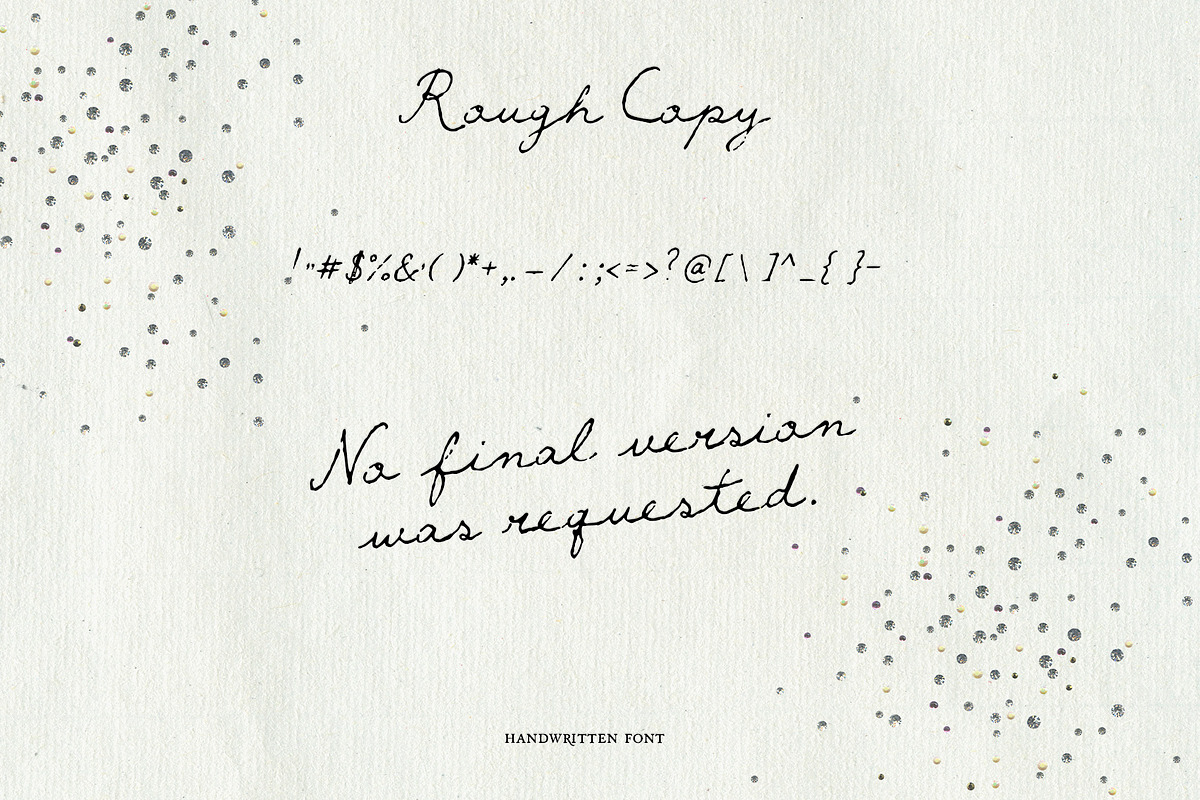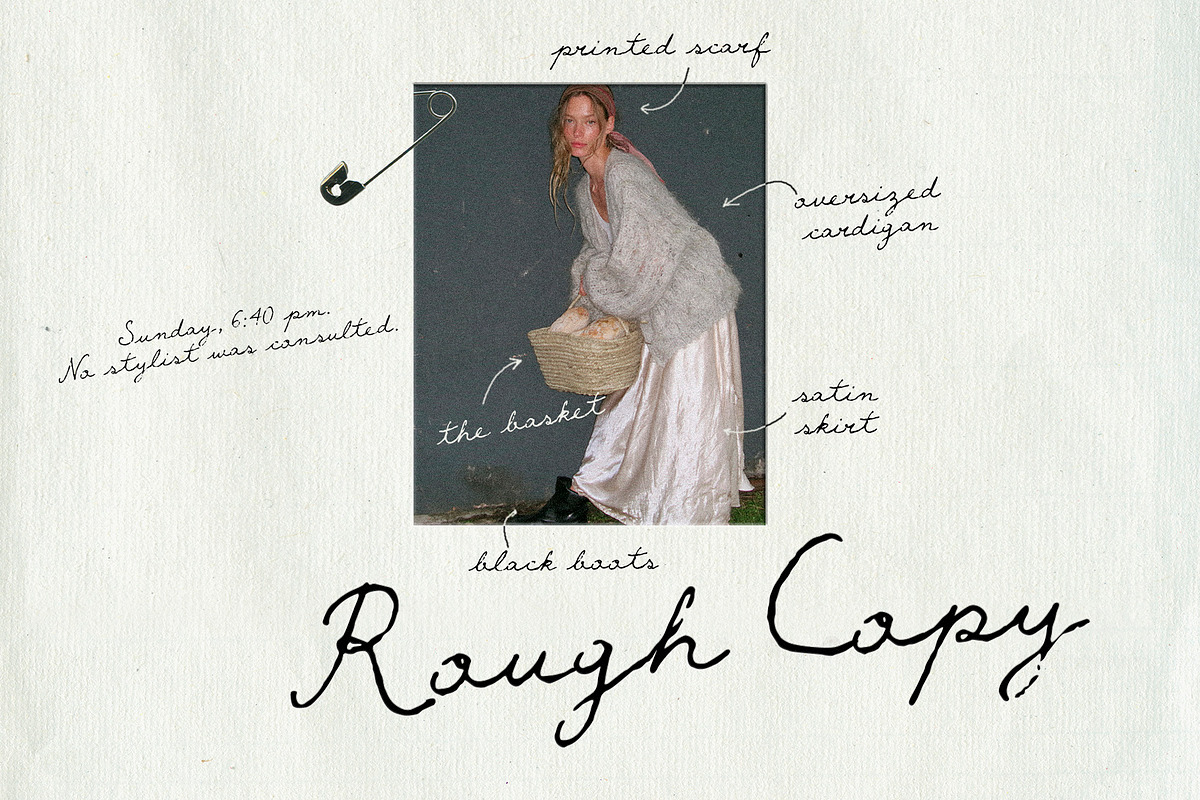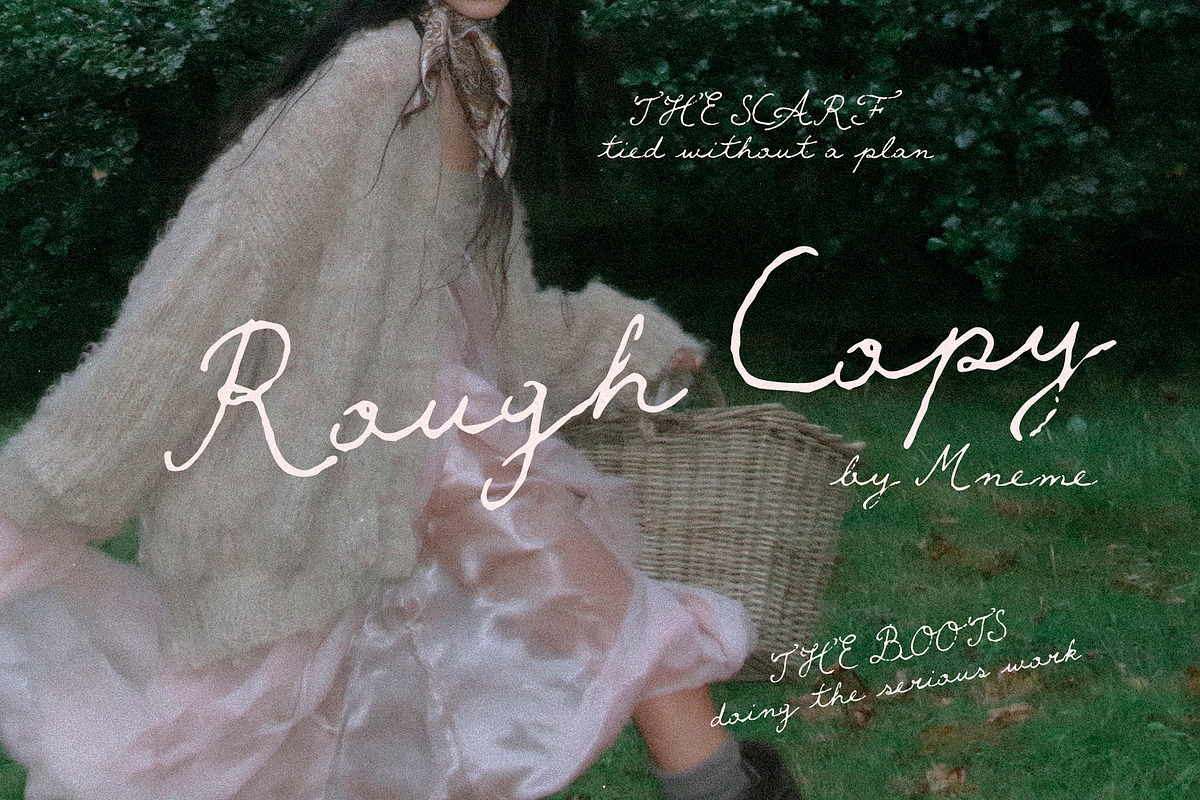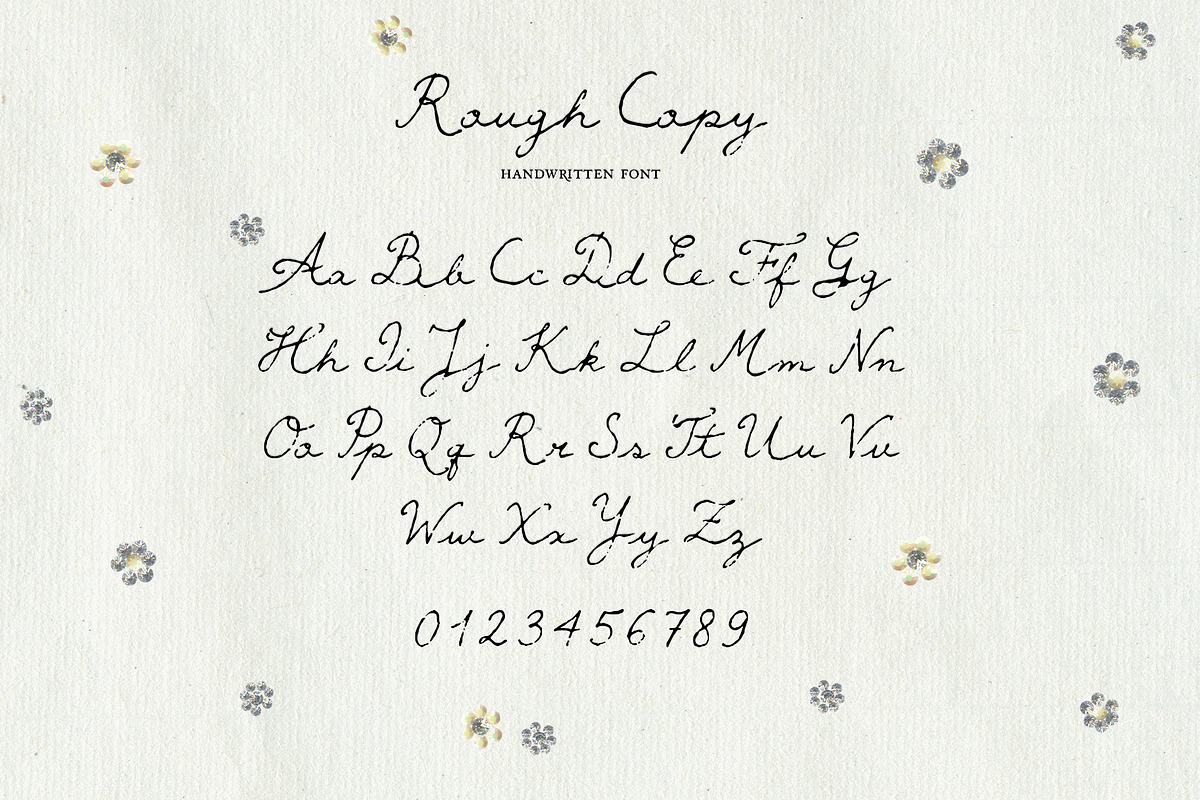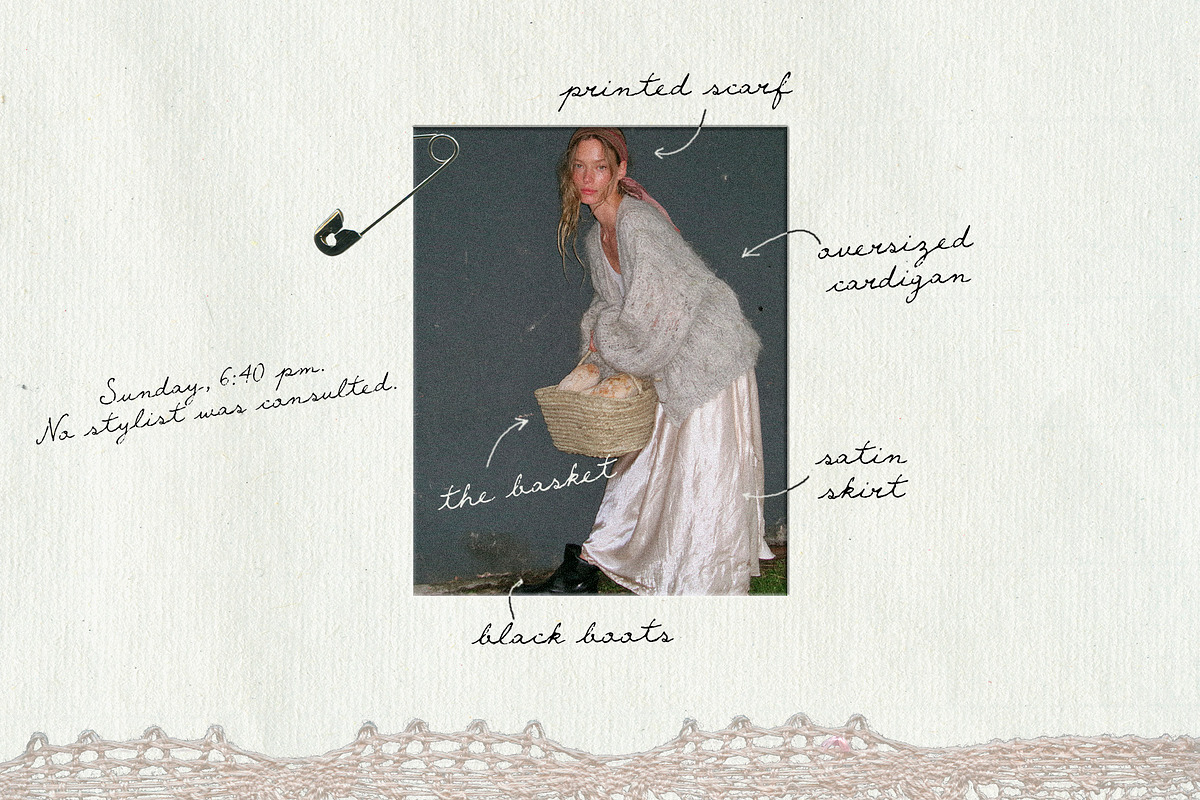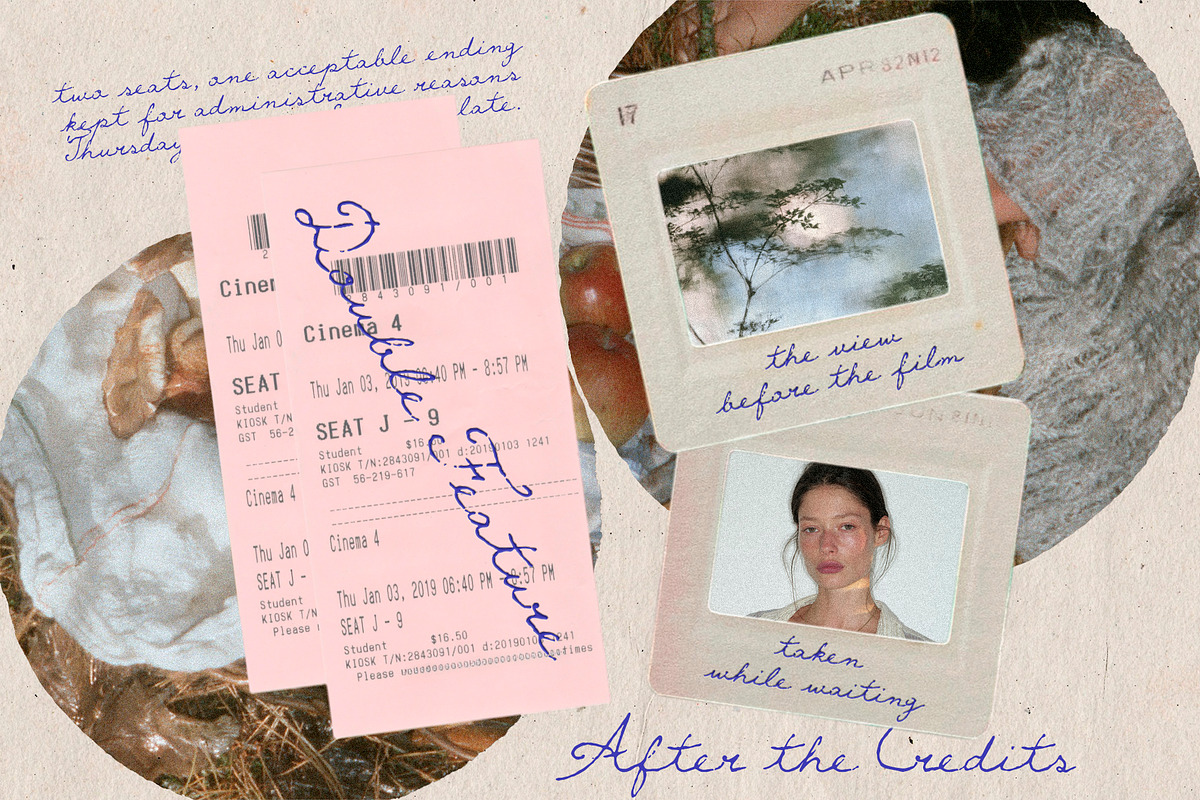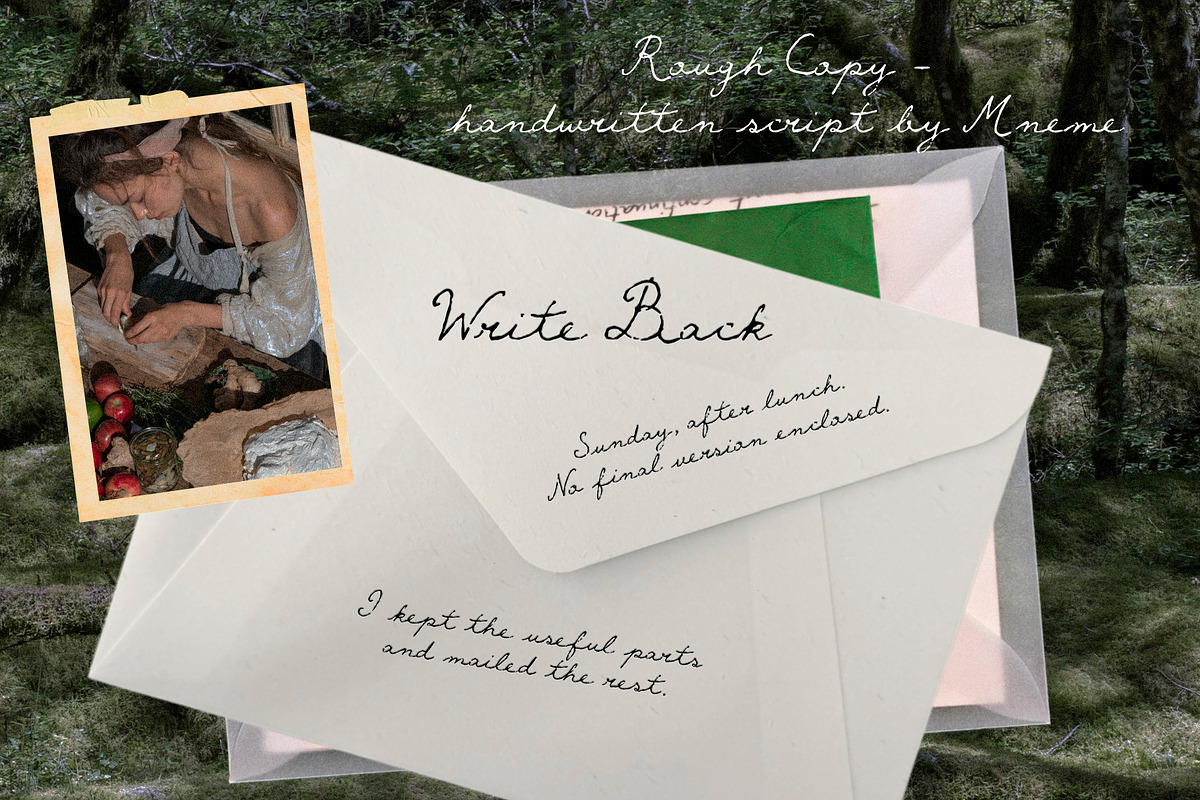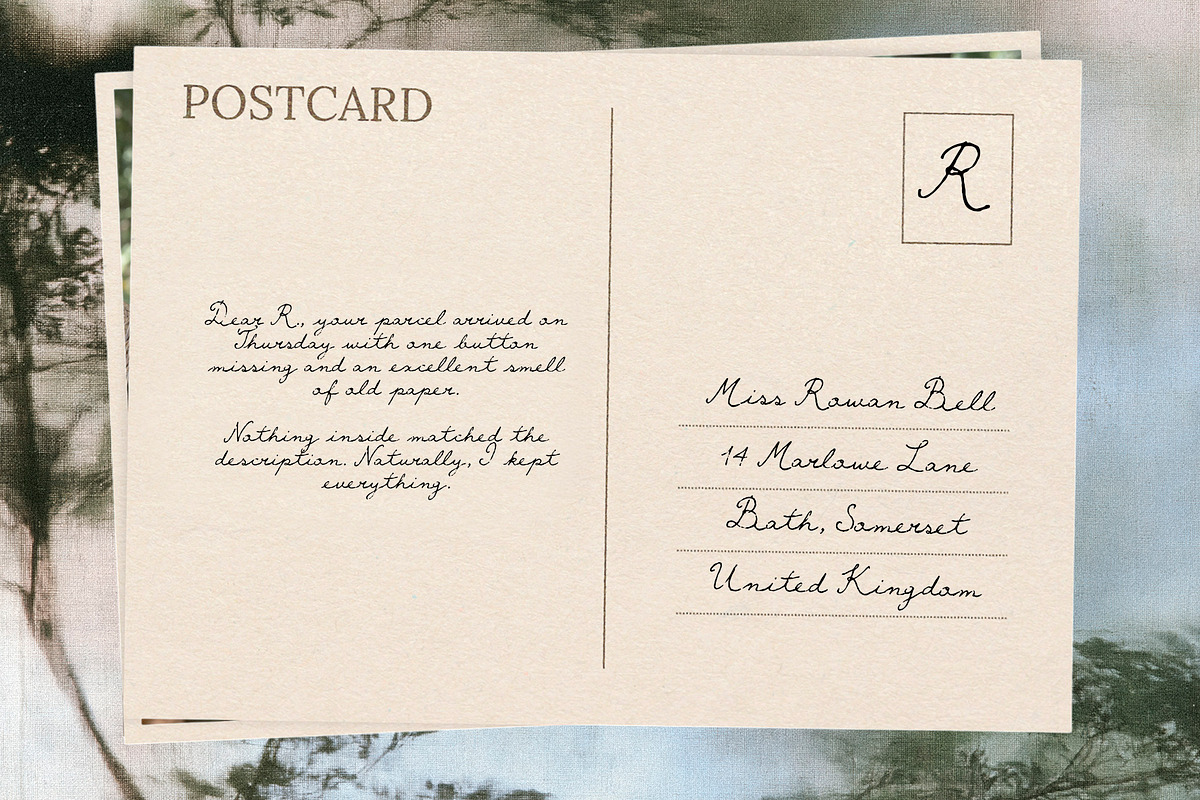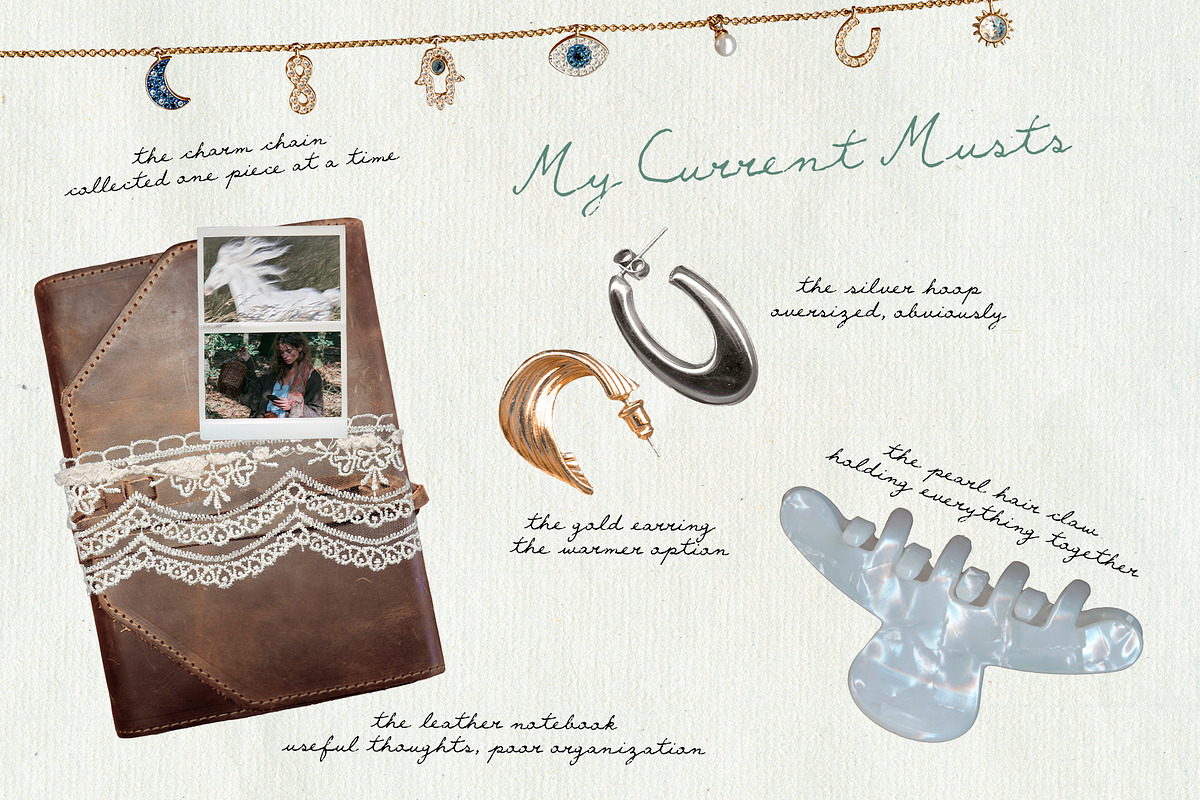
Rough Copy Handwritten Script
Rough Copy is a textured handwritten script font made for work that should feel personal, observed, and slightly unfinished.
Ornamental uppercase letters give titles a distinct silhouette, while the connected lowercase forms create a natural handwritten rhythm. Uneven strokes, shifting pressure, and small irregularities preserve the character of an original drawing without compromising readability.
Rough Copy works especially well for fashion editorials, handwritten annotations, lookbooks, invitations, packaging, personal stationery, journal pages, postcards, menus, social media graphics, and expressive branding.
Uppercase A–Z
Lowercase a–z
Numbers 0–9
Punctuation and symbols